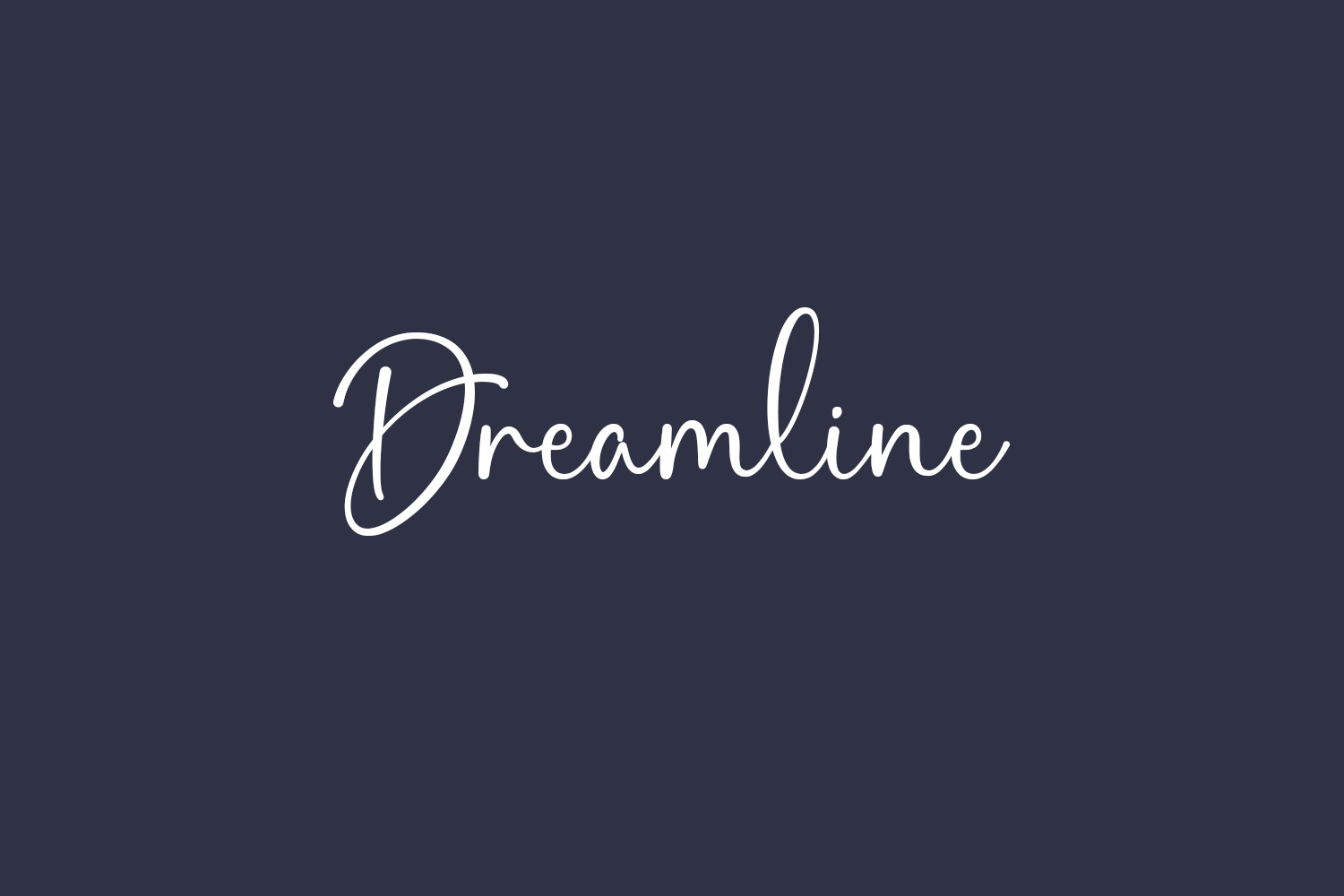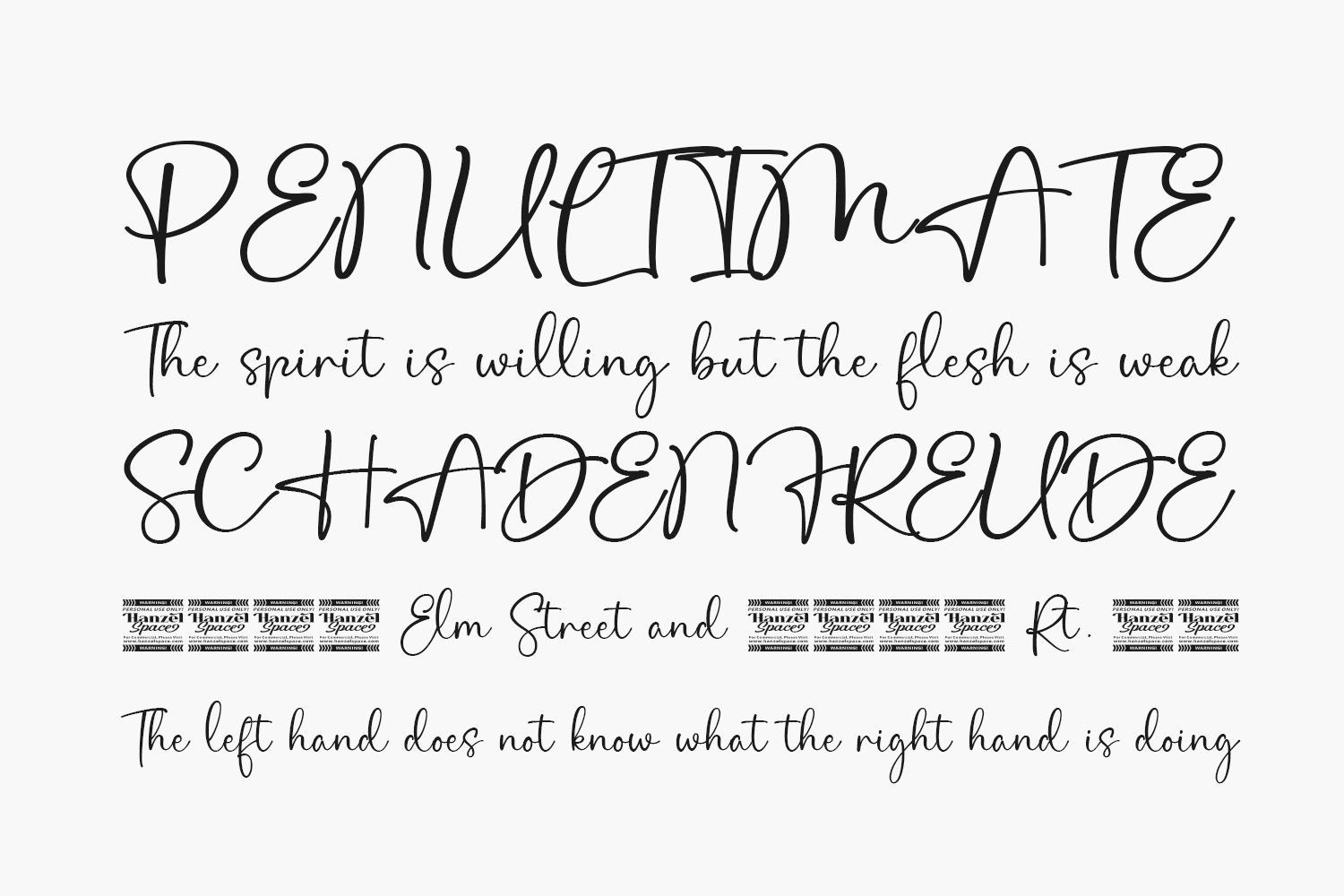
Dreamline Free Font is a unique and elegant handwritten font. It looks beautiful on a variety of designs requiring a personalized style, such as wedding invitations, thank you cards, weddings, greeting cards, logos, and so on. Dreamline Free Font was designed by Ramli Setiadi is a demo and free for personal use only. Please purchase the full version for commercial use.